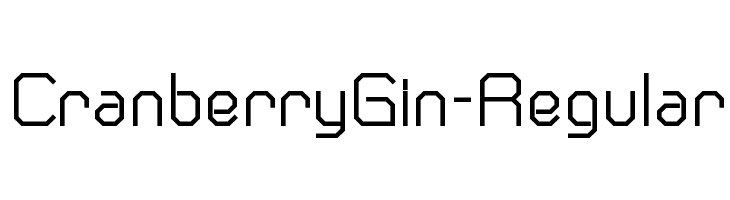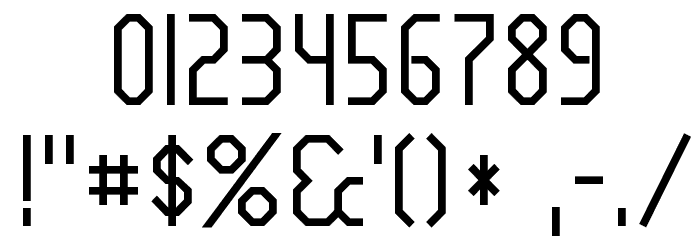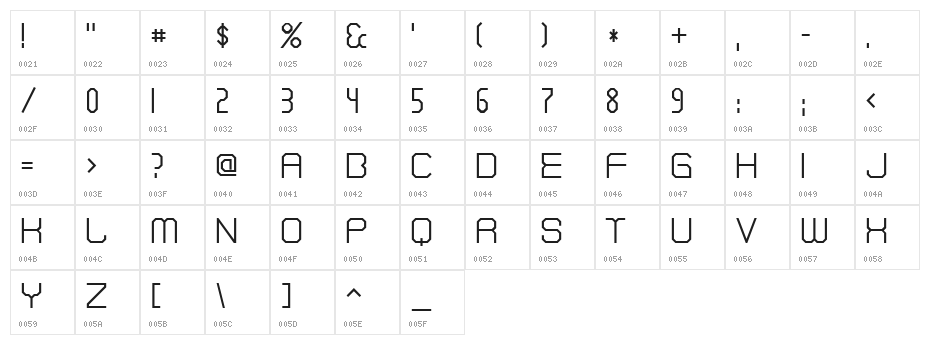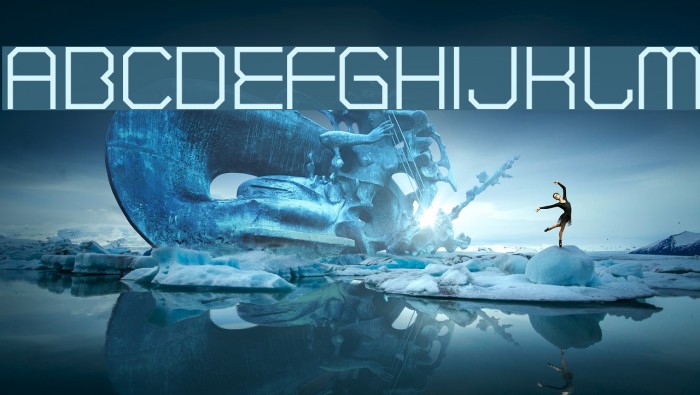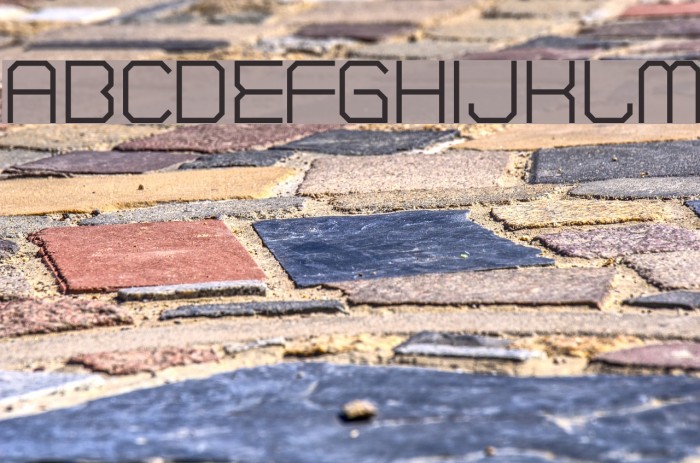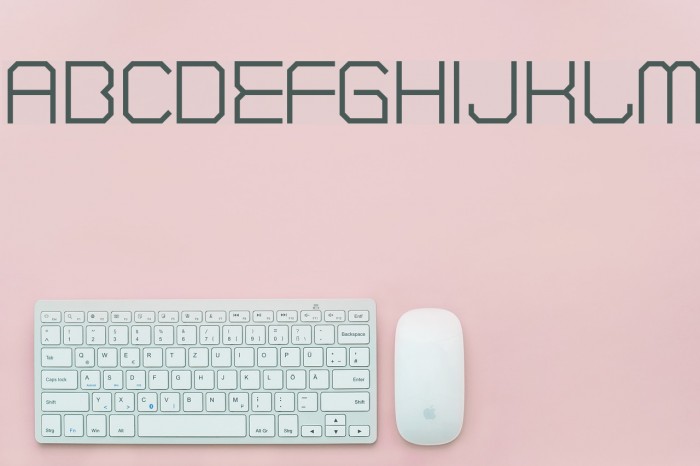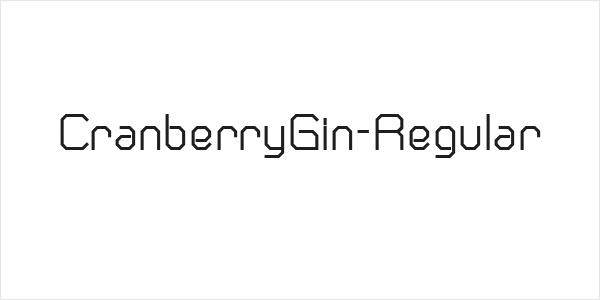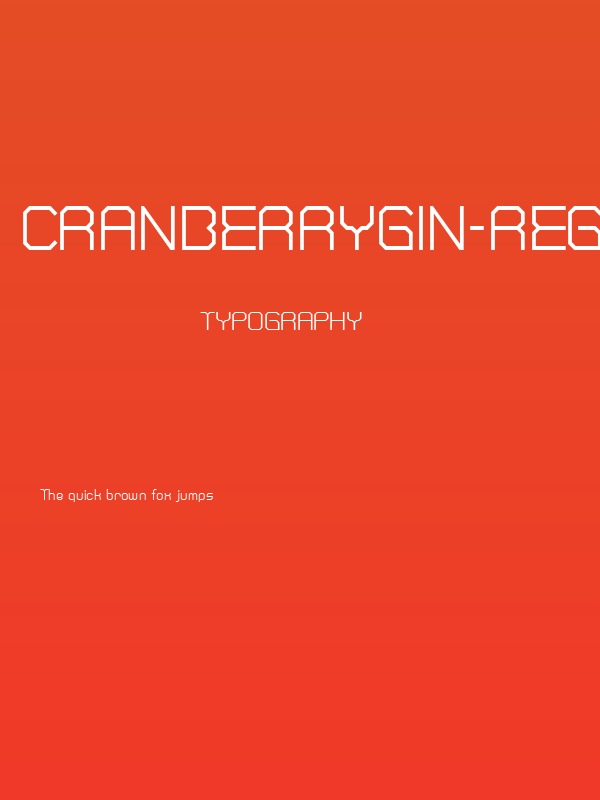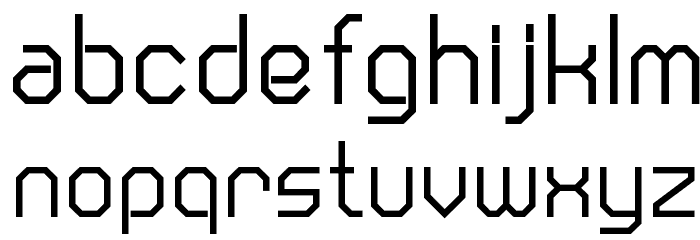
CranberryGin-Regular Font
CranberryGin-Regular Description
This font features a geometric and angular design, characterized by its sharp edges and straight lines. The uppercase letters exhibit a uniform height with a consistent stroke width, creating a modern and structured appearance. The lowercase letters maintain the geometric theme, with a slightly more compact form, ensuring readability while preserving the font's unique style. Numerals are distinct and align well with the overall design, making them suitable for various applications. Special characters are crafted with the same precision, adding versatility to the font's use. This font is ideal for projects that require a contemporary and edgy look.
Proposed ProjectsIdeal for branding, digital interfaces, posters, and modern editorial design.